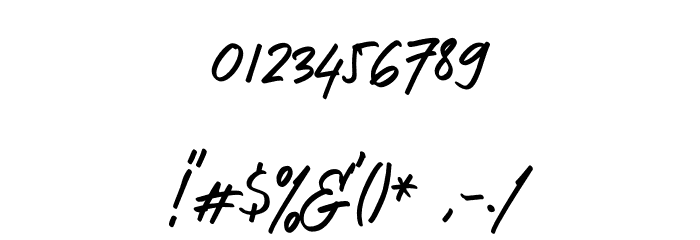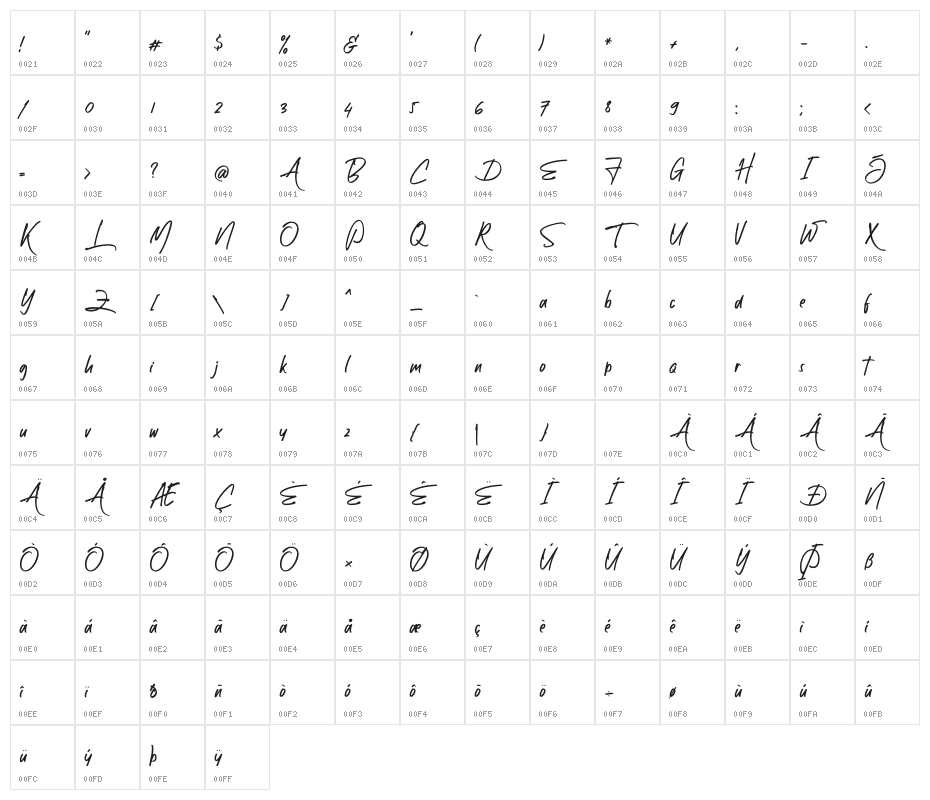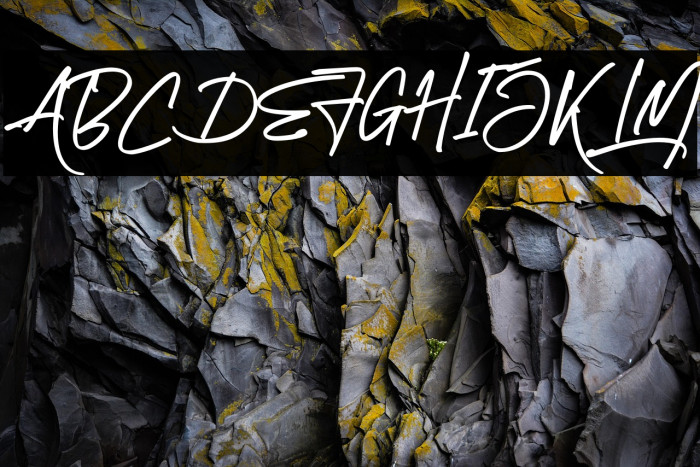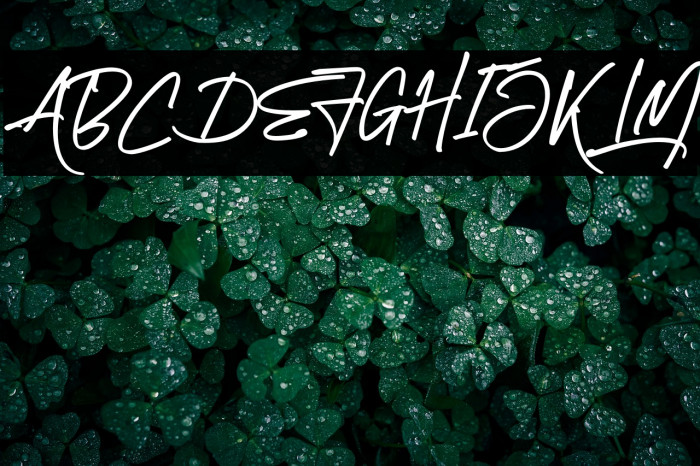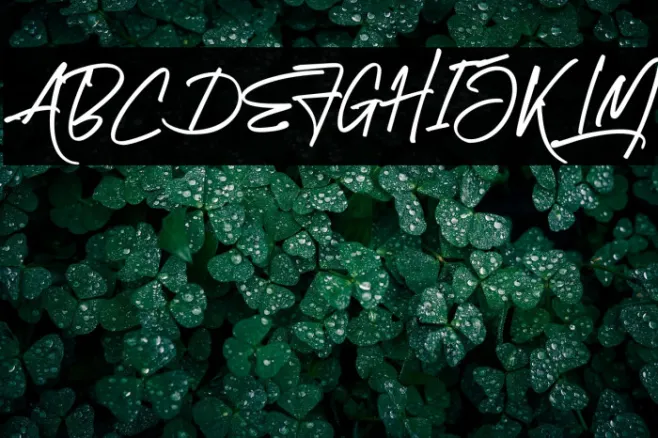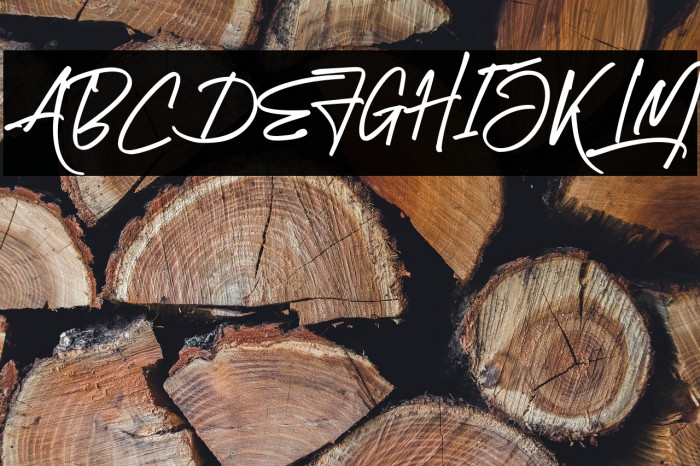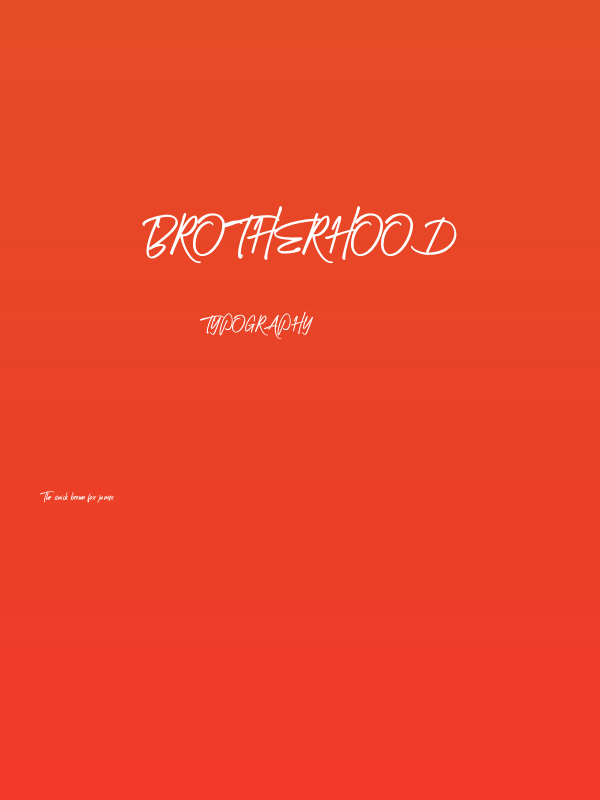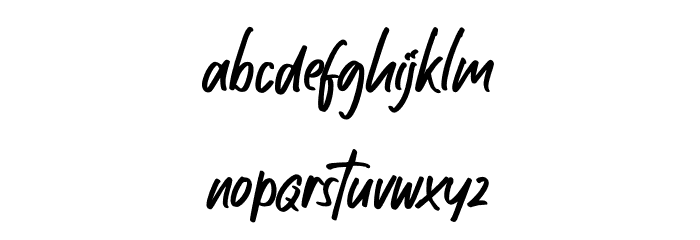
Brotherhood Font
Brotherhood Description
This font exudes a dynamic and energetic style, characterized by its flowing, cursive script that mimics the fluidity of natural handwriting. The uppercase letters are bold and expressive, with exaggerated loops and curves that give a sense of motion and flair. The lowercase letters maintain a consistent style, with smooth connections and a slightly slanted orientation that enhances the handwritten feel. The numerals and special characters are crafted with the same attention to detail, ensuring a cohesive look across all characters. This font is perfect for projects that require a personal touch or a sense of creativity and spontaneity.